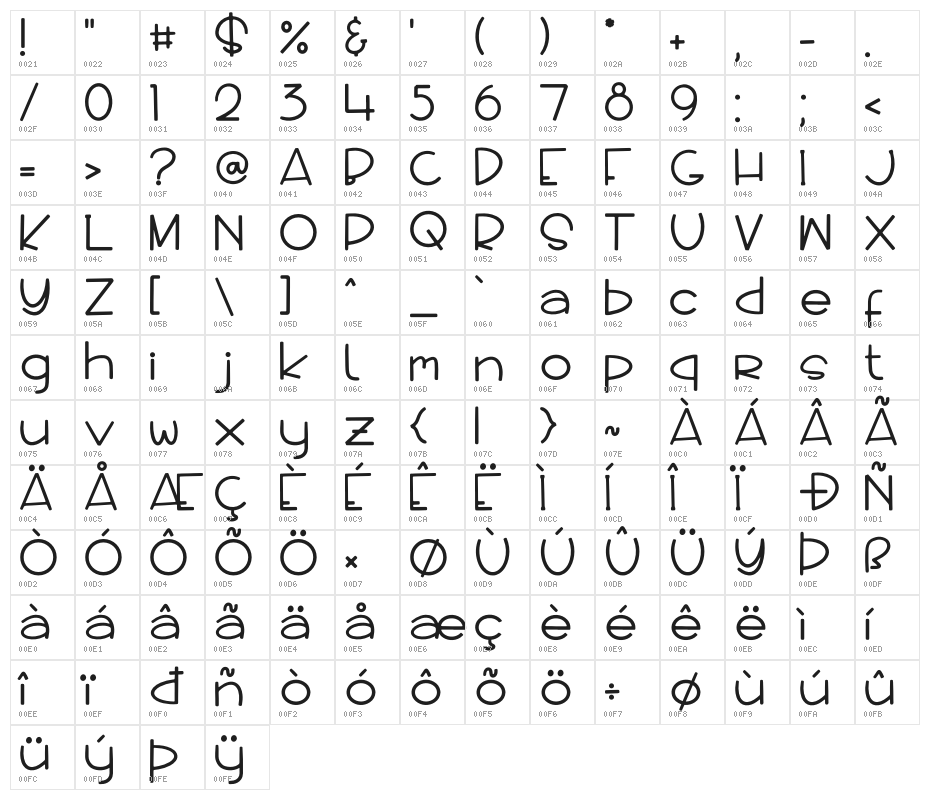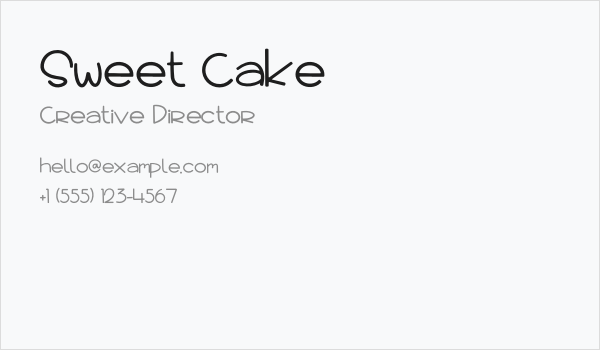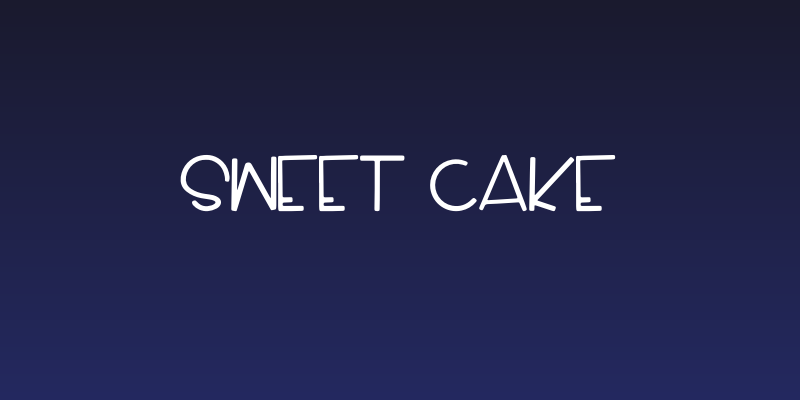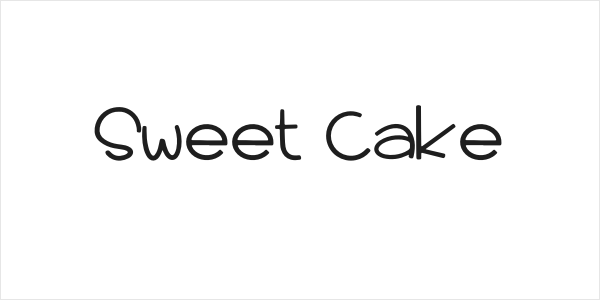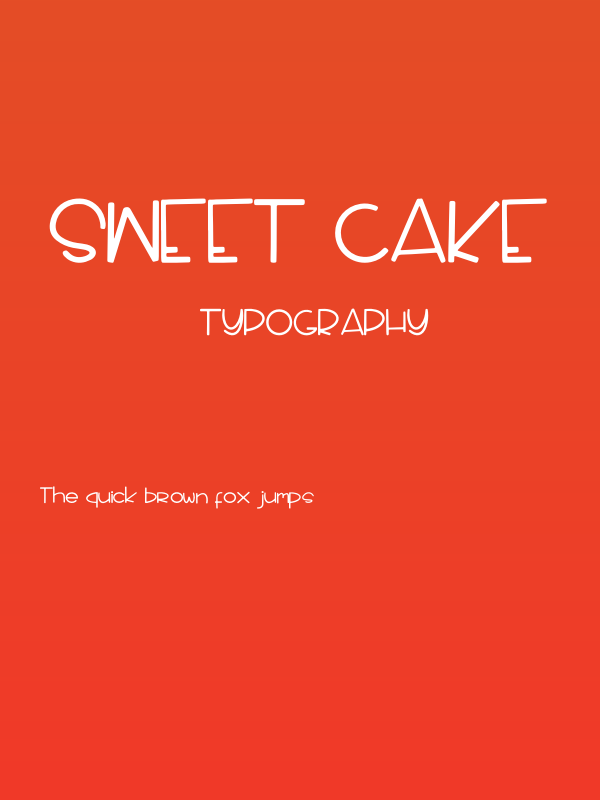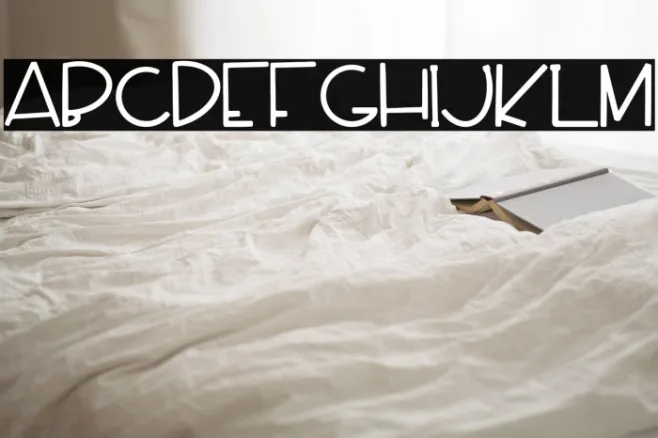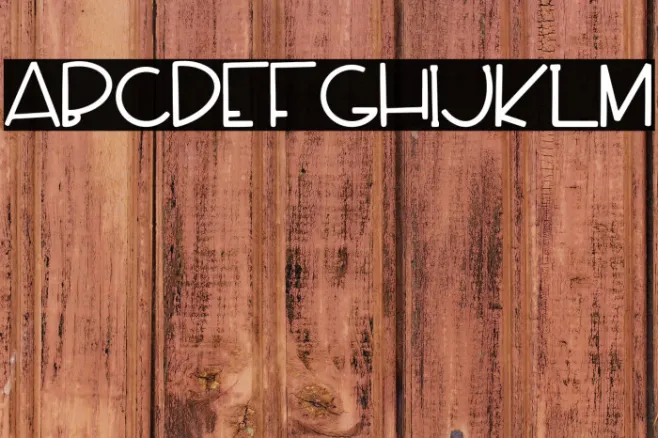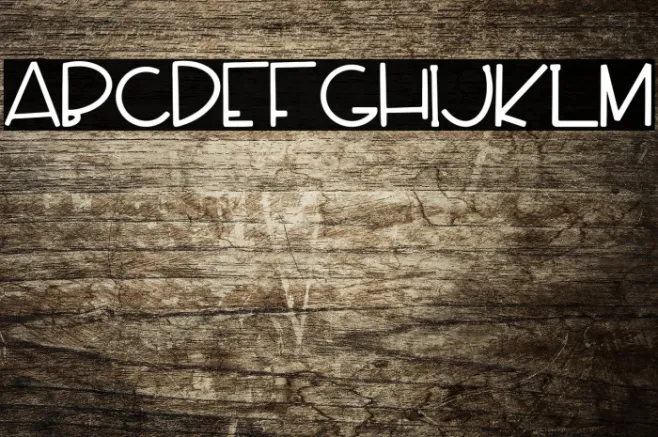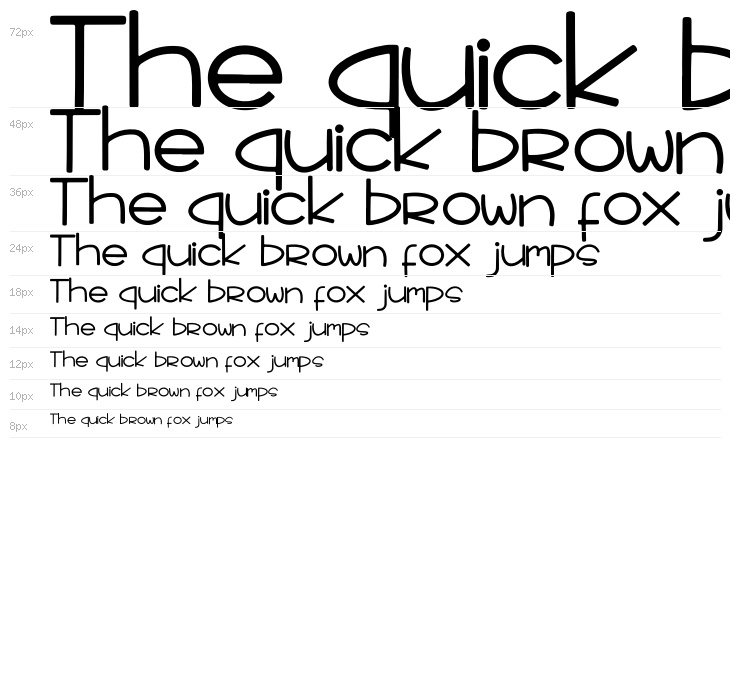
Sweet Cake Font
Sweet Cake Description
This playful and whimsical font features a hand-drawn style with a casual and friendly appearance. The characters are slightly irregular, adding a charming and approachable feel. The strokes are consistent in width, giving it a clean and modern look, while the rounded edges soften the overall appearance. The uppercase and lowercase letters maintain a consistent style, with a slight tilt that adds to the informal vibe. Numbers and special characters are designed to match the playful aesthetic, making this font suitable for creative and fun projects.